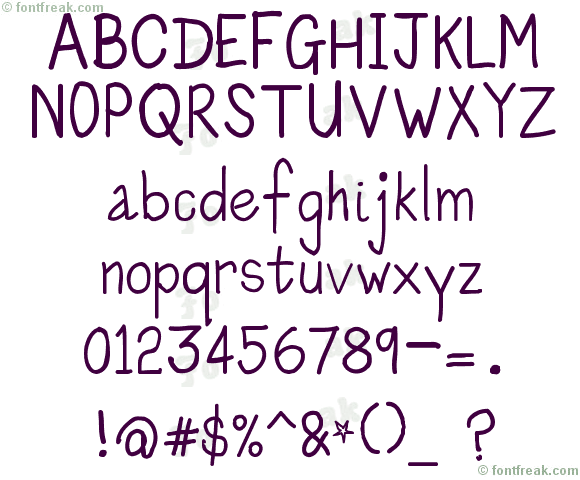
Kids Scrawl
About Kids Scrawl
The Kids Scrawl font by The Font Farm is a delightful handwritten typeface that perfectly captures the playful essence of childhood. Designed by C. Bree Gorton in 2001, this freeware font features a charmingly informal style that mimics the natural scrawl of a child's handwriting. The visual characteristics include light stroke weights with a whimsical irregularity, giving the letters a spontaneous feel. The spacing between characters is relatively tight, further enhancing the playful, carefree vibe of the font. Its simplicity and lack of excessive embellishments make it versatile for various applications.
Ideal for projects aimed at children or those looking to evoke a sense of nostalgia, Kids Scrawl is perfect for creating colorful birthday party invitations, playful educational materials, and cheerful children's book covers. Additionally, it can bring a fun touch to posters for kids' events, school projects, or even family newsletters. The casual nature of this font makes it accessible for graphic designers, small business owners, and content creators who want to engage a younger audience or infuse a sense of whimsy into their work.
What sets the Kids Scrawl font apart is its ability to evoke emotion and imagination. Unlike more formal typefaces, this font invites creativity and playfulness, making it an excellent choice for any project that seeks to resonate with children or capture the innocence of youth. With the Kids Scrawl font free download available, you can easily incorporate this delightful typeface into your design repertoire, adding a unique touch that will stand out in any setting.